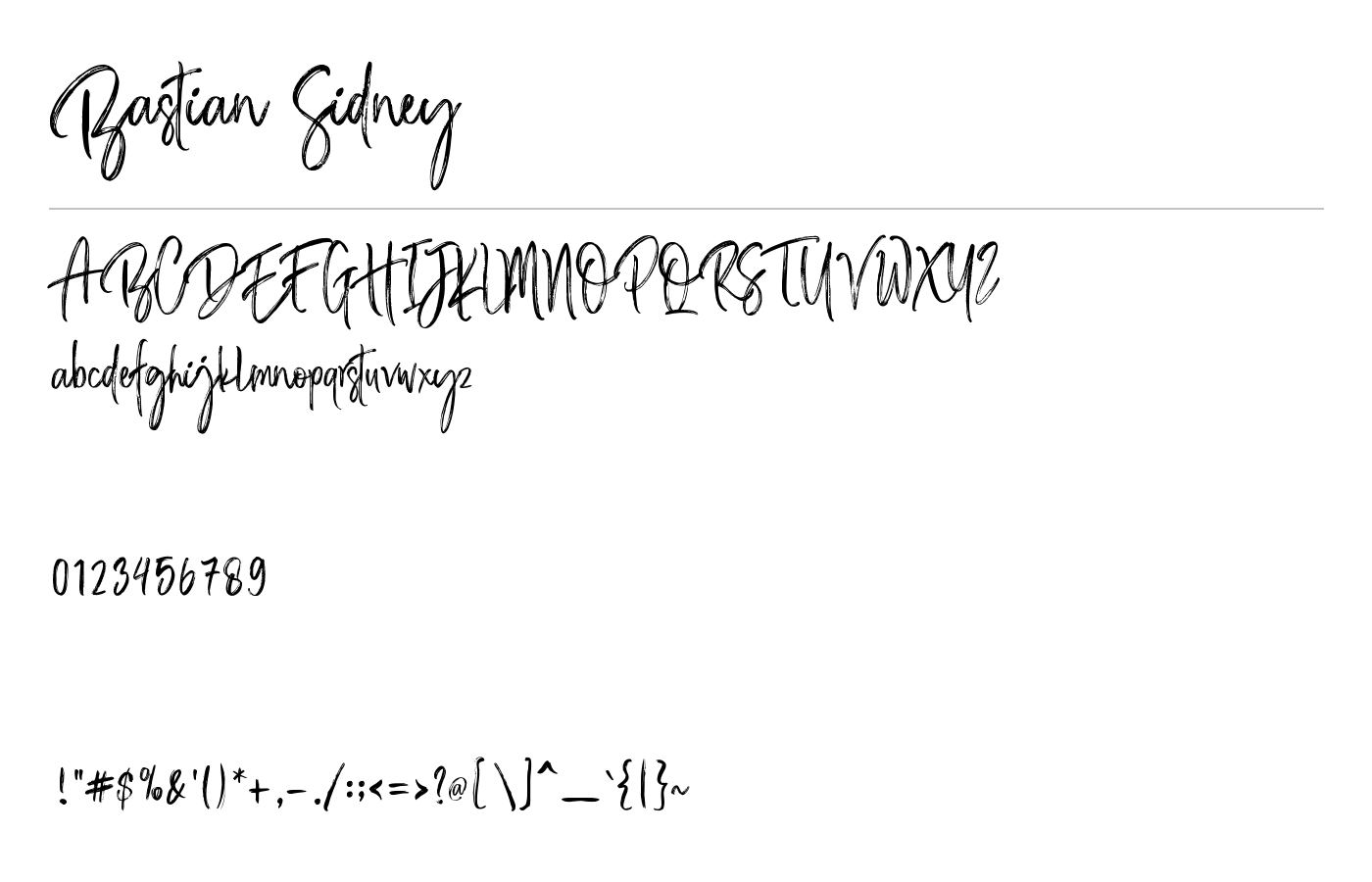
Bastian Sidney is a lively, hand-drawn script font characterized by its loose, textured strokes and a natural, handwritten feel. Its tall, narrow letterforms with varied line thickness give it an informal yet artistic vibe, making it perfect for creative projects, invitations, branding, and social media where a personal touch and dynamic energy are desired. This font works best in display settings where its unique character can shine and add a sense of approachable elegance.
Bastian Sidney Font
About Bastian Sidney Font